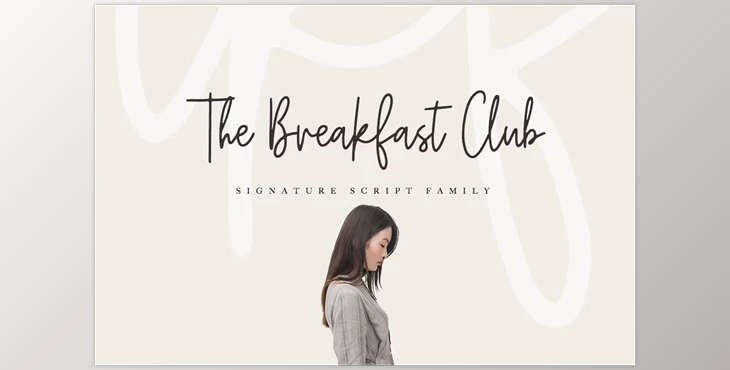
The Breakfast Club - Signature Script Font:
Included in this package is The Breakfast Club Script, meticulously crafted with delicate curves to offer a font that is both distinct and original. It encompasses a comprehensive set of both lowercase and uppercase letters, an extensive array of punctuation marks, numerals, and support for multiple languages. Ideal for infusing an elegant and unique flair into your calligraphy projects and branding endeavors.
Additionally, The Breakfast Club Script provides versatility, whether you're designing wedding lettering, creating stunning frames for your home, or enhancing the visual identity of your small business. Its applications extend to book covers, stationery, marketing materials, magazines, and beyond.